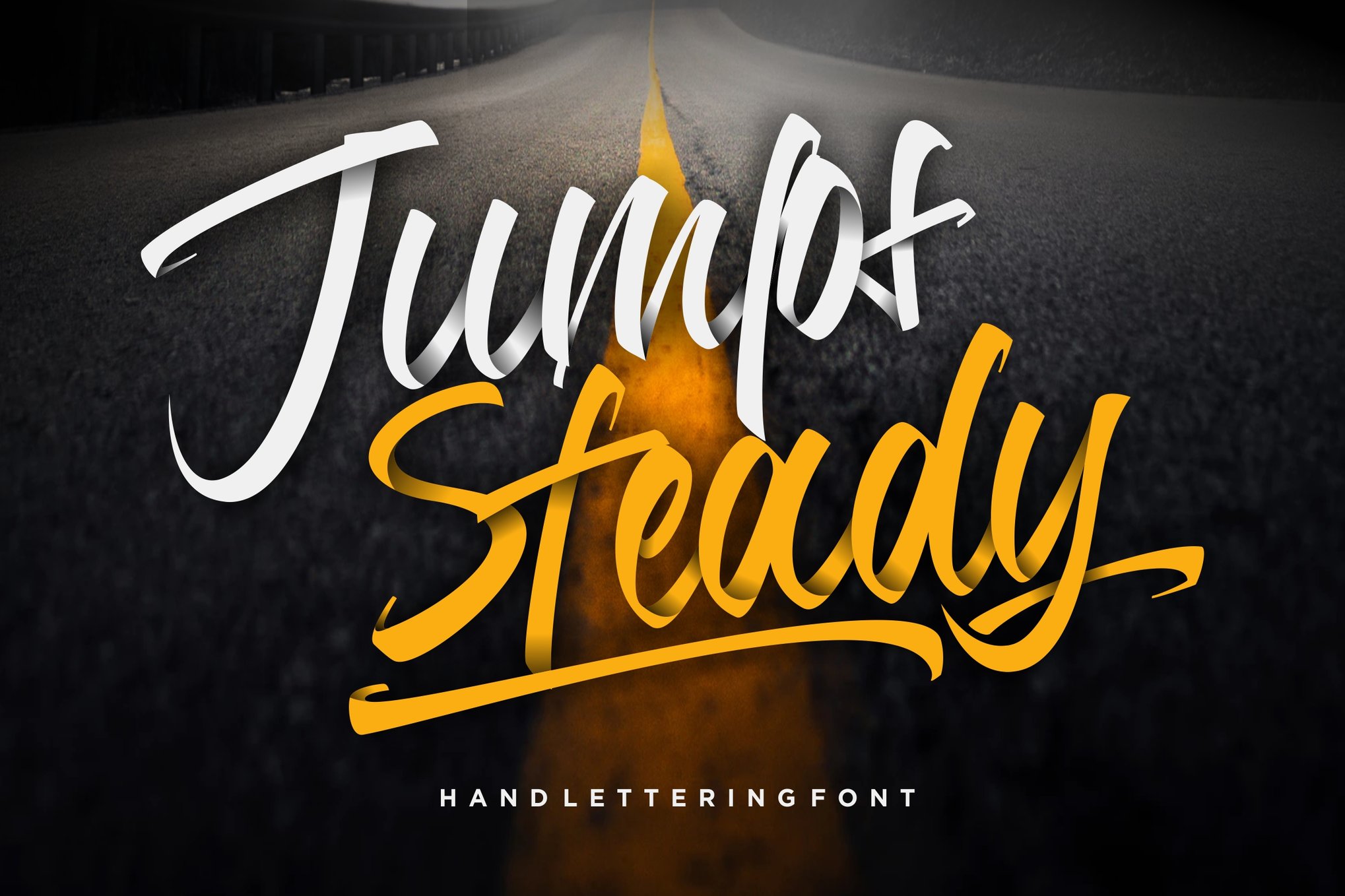
Jumps Steady Business Font
Jumps Steady Business Font is perfect for professional corporate communications, reliable business branding, financial service presentations, steady growth marketing materials, trustworthy company logos, consistent brand identity systems, dependable service communications, progressive business development, reliable consulting firms, and steadfast investment companies.
Jumps Steady Business Font is exciting because it perfectly captures the balance between dynamic progress and reliable stability, creating a typeface that embodies consistent growth, trustworthy advancement, and the confident momentum that defines successful business development. This font brings professional dynamism and business reliability to any project, making it ideal for organizations that want to convey steady progress, reliable performance, and the sustained growth that builds lasting business success. Its balanced character and progressive appeal create an atmosphere of business confidence that resonates with professional audiences seeking reliable partners and steady growth opportunities.
Jumps Steady Business Font family includes light, regular, medium, bold, and black weights, each available in roman and italic styles with business symbols and professional ornaments, providing designers with comprehensive tools for creating dynamic business typography and progressively reliable brand experiences.
This dynamic professional typeface combines growth-oriented aesthetics with contemporary business functionality, making Jumps Steady Business Font Free Download an outstanding choice for projects celebrating business excellence and progressive development. The font's strategically crafted letterforms feature balanced proportions and business-inspired styling that reflect the steady momentum and reliable progress essential for sustainable business success.
Whether you're designing corporate identity systems, financial service materials, or professional consulting communications, Jumps Steady Business Font delivers unmatched business authenticity and professional appeal. The font excels in both detailed business applications and large-scale corporate environments where steady growth and reliable performance create trustworthy business relationships.
Business professionals choose Jumps Steady Business Font for its ability to instantly communicate reliable progress and business competence while creating confident connections with clients seeking steady growth and dependable business partnerships. The font's progressive character makes it particularly effective for consulting firms, financial services, and reliable business development companies.
Each character reflects the steady momentum of business success, featuring progressive construction and reliable proportions that create typography as dependable and successful as steady quarterly growth, reliable business partnerships, and the sustained momentum of thriving enterprises.